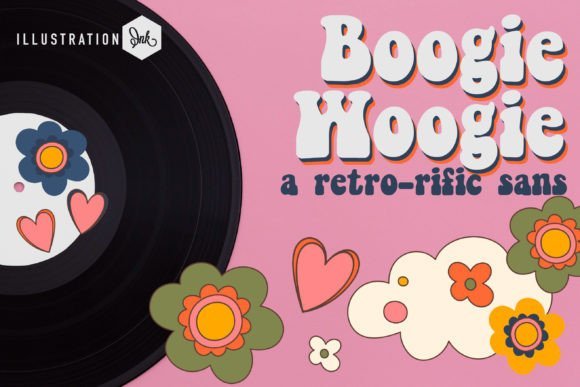
The Ultimate Design Companion: Boogie Woogie Font
Have you ever found yourself stuck in a creative rut, staring at a blank canvas or screen, desperately searching for that one spark to ignite your imagination? We’ve all been there, and it’s in those moments that the right font can be the difference between a mediocre design and a masterpiece.
Enter the Boogie Woogie Font, a fun and quirky display font designed to bring your creative ideas to life. Whether you’re working on a project that requires a touch of whimsy or a dash of playfulness, this font is the perfect companion to help you achieve your vision. With its unique character and versatility, the Boogie Woogie Font is an invaluable tool for designers looking to add a bit of personality to their work.
With the Boogie Woogie Font on your side, the possibilities are endless, and your designs will be sure to stand out from the crowd.
Boogie Woogie Font Key Features
- Font Family: Boogie Woogie Font is a sans-serif font with a unique, energetic feel.
- Unique Characteristics: Features a distinctive, playful feel with exaggerated curves and lines, making it perfect for titles, headings, and other display typography.
Boogie Woogie Font Review
The Boogie Woogie font is a fun, energetic typeface that’s perfect for projects that need a playful vibe. I love how it captures the spirit of the 1940s and 50s with its lively, retro feel. ✨
Here are some of the things that work well with the Boogie Woogie font:
- It’s perfect for creating a nostalgic or vintage atmosphere.
- The font’s energetic feel makes it great for projects that need a lot of excitement and energy.
- The Boogie Woogie font is highly legible, even at smaller font sizes.
- The font may be too over-the-top for more serious or professional projects.
- The Boogie Woogie font can be quite loud, so it may be difficult to pair with other fonts that have a lot of visual weight.
- The font may not be suitable for projects that require a lot of subtlety or nuance.
Overall, I think the Boogie Woogie font is a great choice for projects that need a fun, energetic vibe. While it may have some limitations, I think its playful feel and high legibility make it a great addition to any designer’s toolkit.
The Boogie Woogie font is ideal for creative projects, such as:
- Music posters and flyers
- Music-themed social media graphics
- Artistic typography projects
What is the Boogie Woogie Font?
The Boogie Woogie Font is a popular display font designed to evoke the energy and playfulness of 1940s and 50s boogie-woogie music. It features a bold, dynamic style with exaggerated letterforms and a distinctive flair.
Boogie Woogie Font Creative Projects
Project 1: Vintage Dance Party Invitation
The Boogie Woogie Font is perfect for a vintage-themed dance party invitation. Its fun and energetic feel will set the tone for a night to remember.
Project 2: Retro-Style Music Poster
The Boogie Woogie Font is ideal for creating a retro-style music poster that will transport listeners back in time.